Hi Everyone, I recently saw this invite online and I love the font. I have spend some time trying to figure out what it is.. Please help! What font? :  wedding Invite
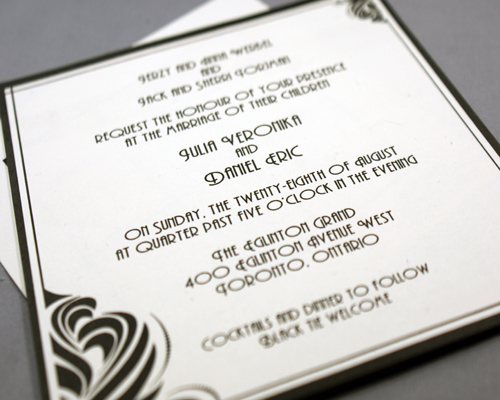
Does anyone recognize this font? Any suggestions how to find out would me much appreciated!
the font has a retro feel to it.  i googled retro fonts and found andes font.